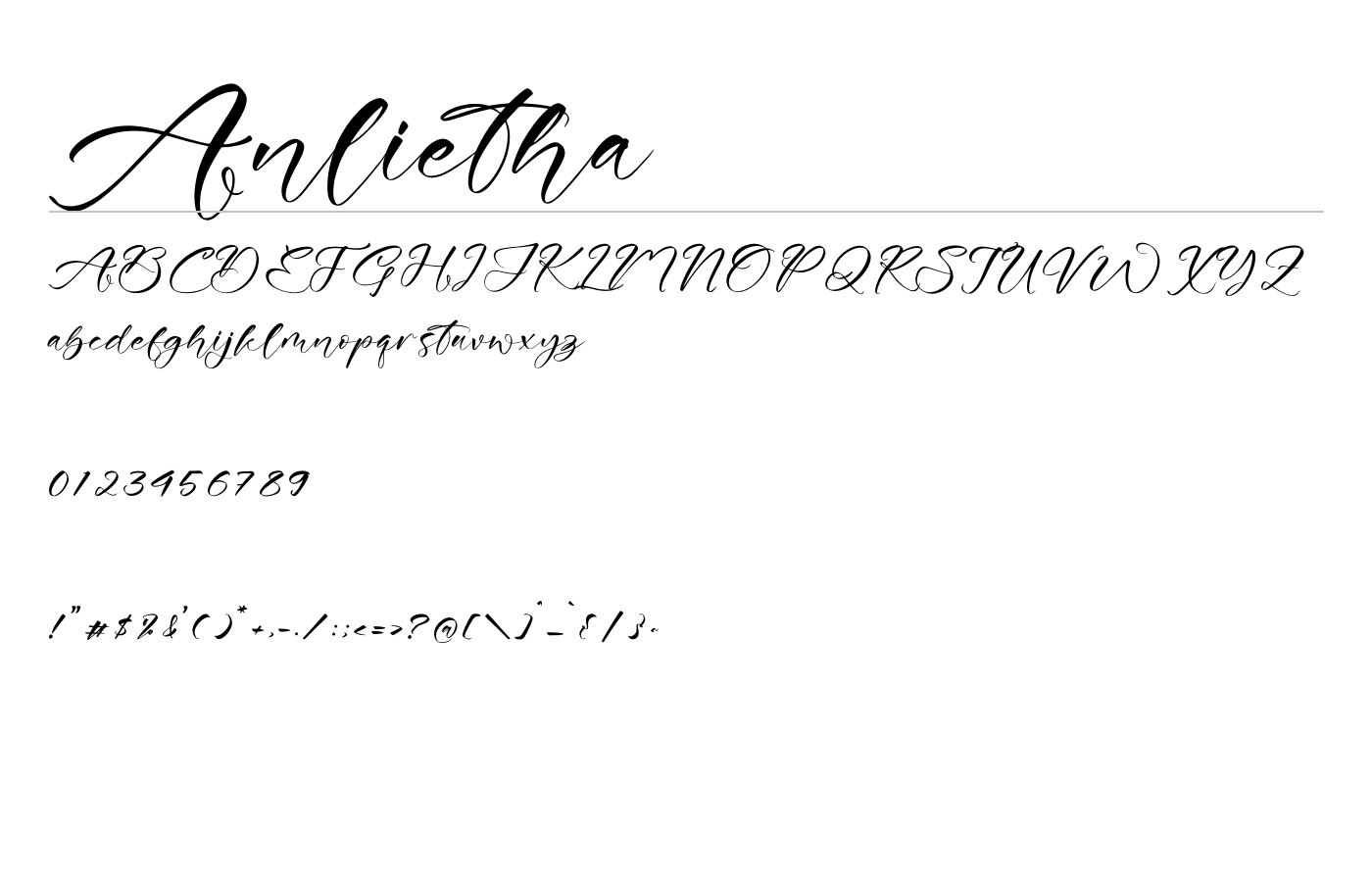
Anlietha is an elegant script font featuring flowing, calligraphic strokes with a delicate, hand-drawn feel. Its smooth, high-contrast lines and graceful curves make it perfect for sophisticated branding, wedding invitations, and luxury packaging where a refined and personal touch is desired. This font excels in decorative headlines and stylish logos, conveying a sense of charm and elegance.
Anlietha Font
About Anlietha Font